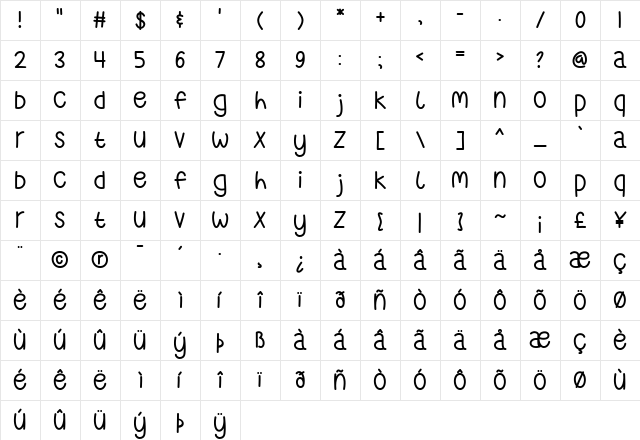
Complete Mf The Lonely Ones Regular glyph index. Displaying only characters natively supported by Mf The Lonely Ones Regular font.
Mf The Lonely Ones is a composed and adaptable typeface that performs quietly and consistently across a wide range of design contexts.